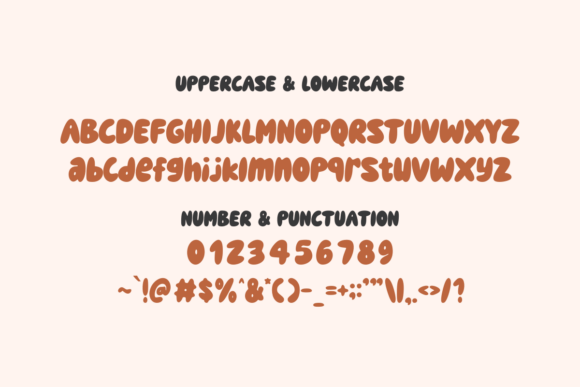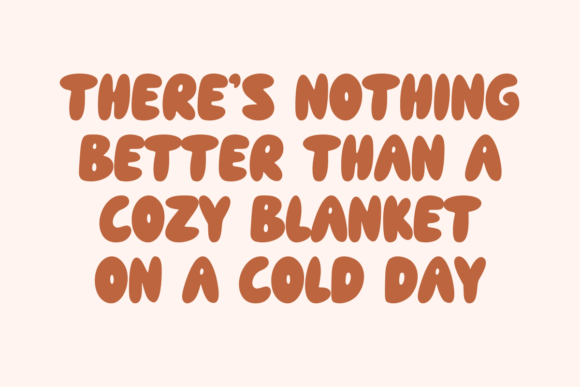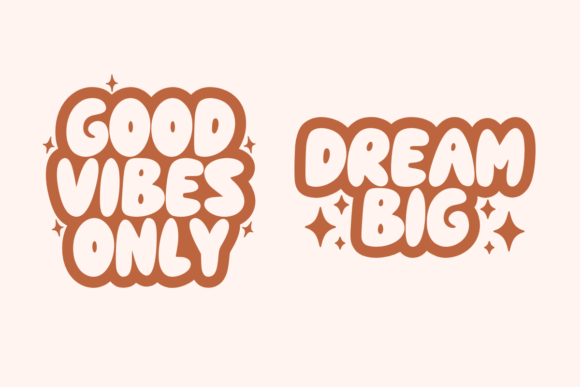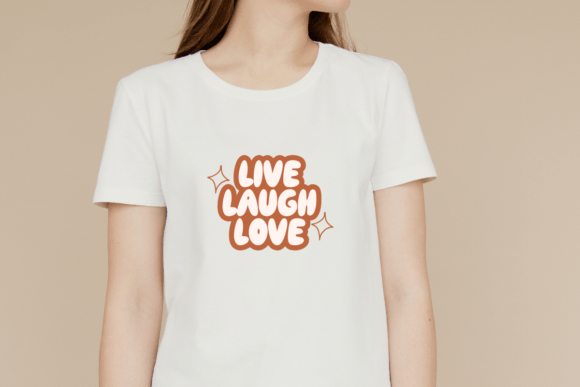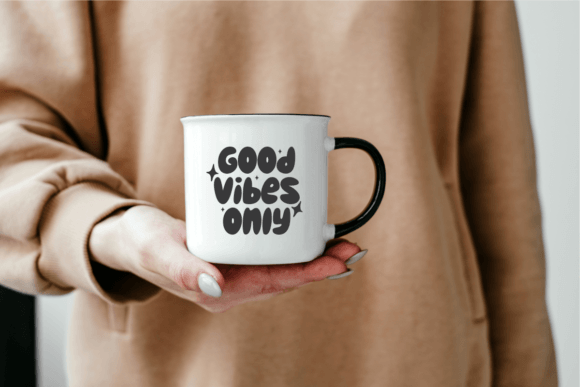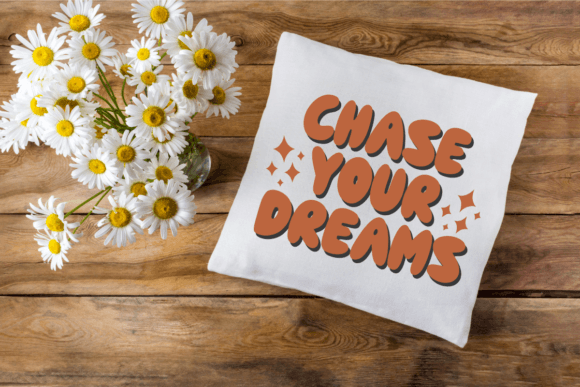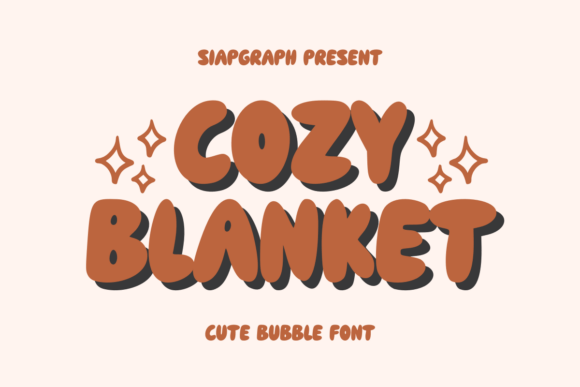
Cozy Blanket Font: The Ultimate Typeface for Warm and Playful Designs
Are you looking for a font that exudes warmth, charm, and cuteness? Look no further than Cozy Blanket Font, a delightful bubble-style typeface that’s perfect for creating engaging designs for children, branding, social media graphics, and crafting projects. In this article, we’ll dive into the world of Cozy Blanket Font and explore its features, uses, and benefits for designers and crafters.
What is Cozy Blanket Font?
Cozy Blanket Font is a unique and playful typeface that features rounded, chunky letters that are sure to capture the hearts of your audience. Its bubble-style design gives it a fun and whimsical feel, making it perfect for designs that require a touch of warmth and personality. Whether you’re creating a children’s book, a social media graphic, or a craft project, Cozy Blanket Font is the perfect choice.
Key Features of Cozy Blanket Font
- Rounded and Chunky Letters: Cozy Blanket Font features rounded, chunky letters that are easy to read and fun to look at.
- Bubble-Style Design: The font’s bubble-style design gives it a playful and whimsical feel that’s perfect for children’s designs and crafting projects.
- Playful and Fun: Cozy Blanket Font is the perfect choice for designs that require a touch of fun and playfulness.
- Perfect for Children’s Designs: The font’s cute and charming design makes it perfect for children’s books, nursery rhymes, and other kids’ content.
Uses of Cozy Blanket Font
Cozy Blanket Font is a versatile typeface that can be used in a variety of design projects, including:
- Children’s Designs: Cozy Blanket Font is perfect for children’s books, nursery rhymes, and other kids’ content.
- Branding: The font’s playful and charming design makes it perfect for branding projects that require a touch of personality.
- Social Media Graphics: Cozy Blanket Font is perfect for creating engaging social media graphics that require a touch of fun and playfulness.
- Crafting Projects: The font’s cute and charming design makes it perfect for crafting projects, such as knitting patterns, crochet designs, and paper crafting.
Benefits of Using Cozy Blanket Font
Using Cozy Blanket Font in your design projects offers a range of benefits, including:
- Unique and Playful Design: Cozy Blanket Font’s unique and playful design sets it apart from other typefaces.
- Easy to Read: The font’s chunky letters are easy to read, making it perfect for designs that require clear communication.
- Versatile: Cozy Blanket Font can be used in a variety of design projects, from children’s designs to branding and social media graphics.
Cozy Blanket Font is a warm and playful bubble-style typeface that’s perfect for creating engaging designs for children, branding, social media graphics, and crafting projects. Its rounded, chunky letters and bubble-style design give it a unique and charming feel that’s sure to capture the hearts of your audience. With its versatility, ease of use, and range of benefits, Cozy Blanket Font is a must-have font for designers and crafters.